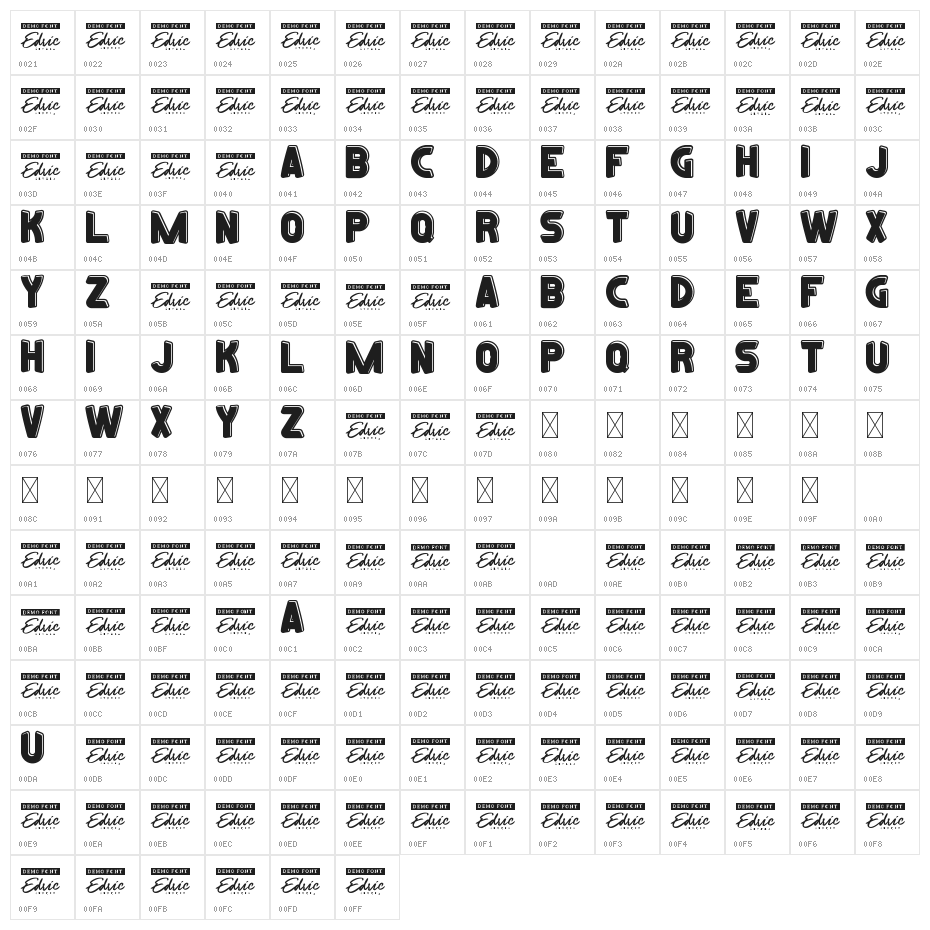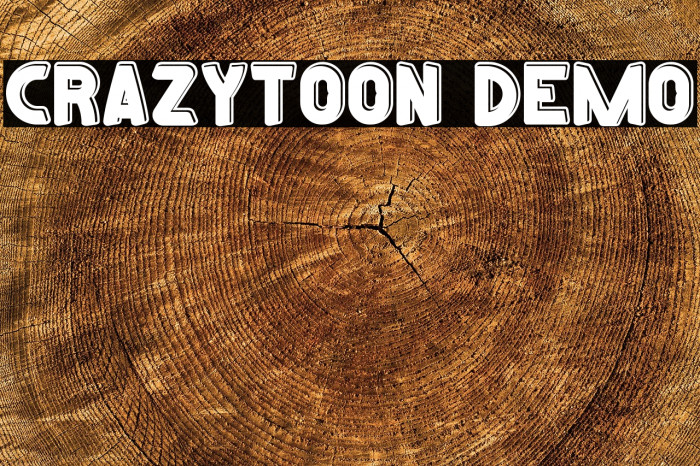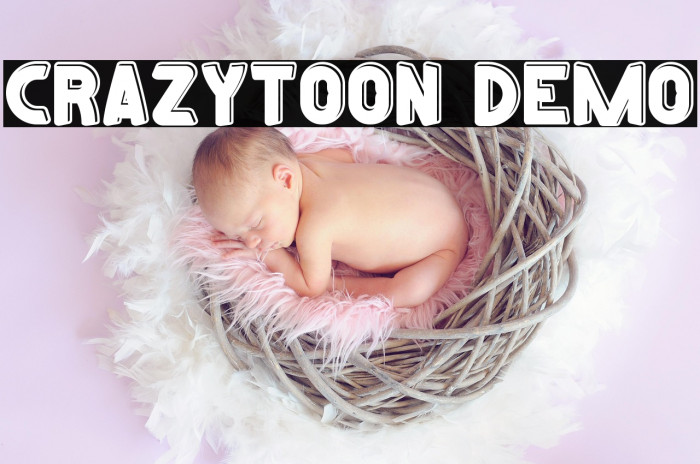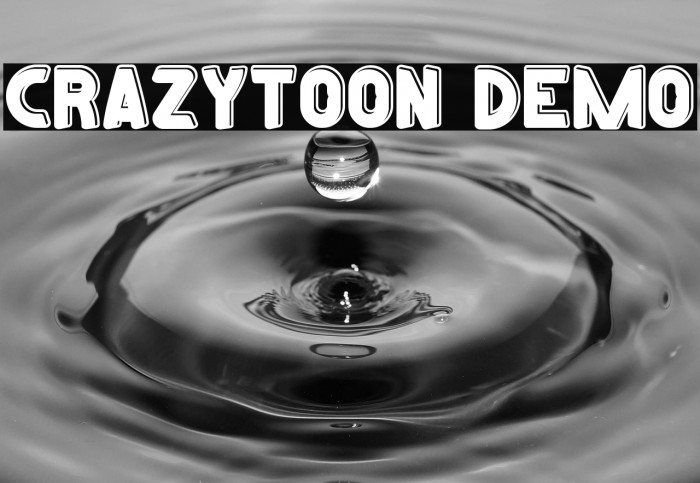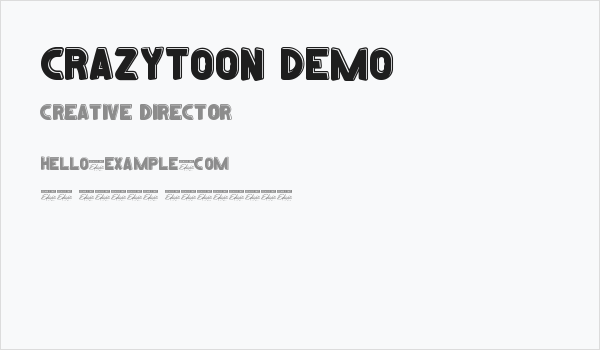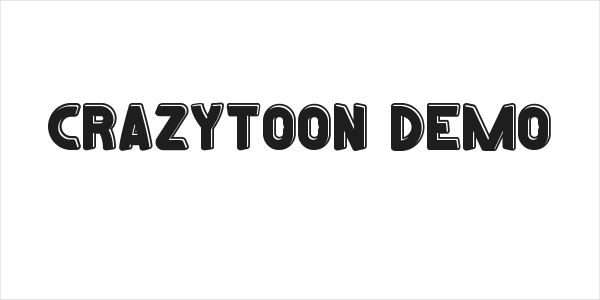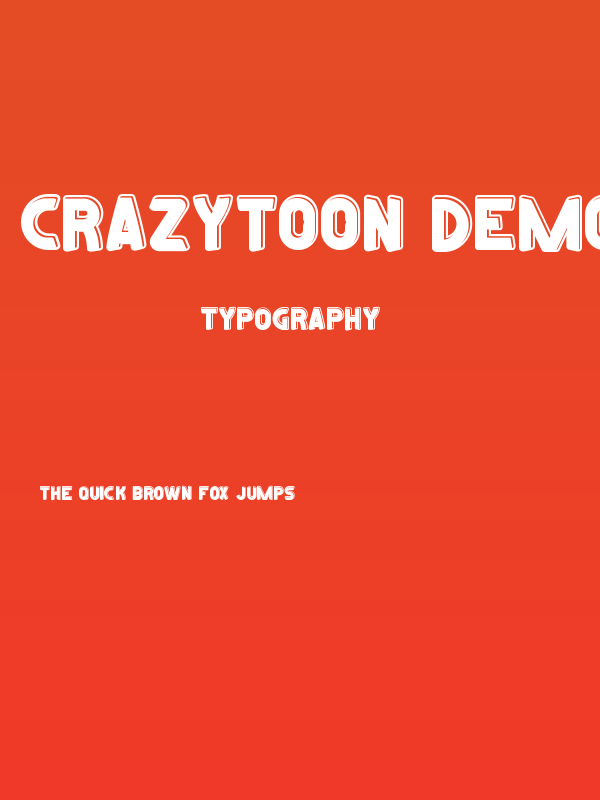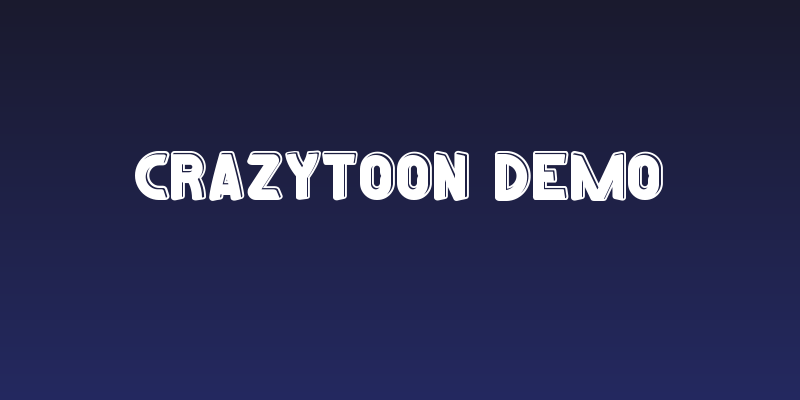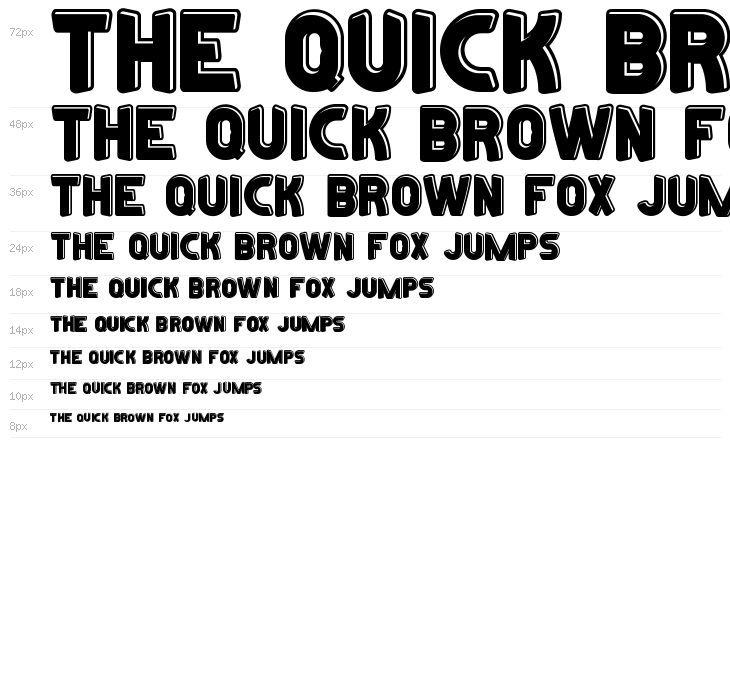
Crazytoon Demo Font
Crazytoon Demo Description
This font features a bold and playful design, characterized by thick, rounded letters with a cartoonish flair. The uppercase letters are prominent with a slight shadow effect that adds depth and dimension. The style is reminiscent of comic book lettering, making it ideal for projects that require a fun and engaging appearance. The font maintains a consistent weight throughout, ensuring readability while still capturing attention. Its unique style makes it suitable for creative projects, especially those aimed at younger audiences or those looking to convey a sense of humor and lightheartedness.
| Overall Style | Playful, Cartoonish |
| Proposed Projects | Ideal for comic books, children's books, playful branding, and posters. |